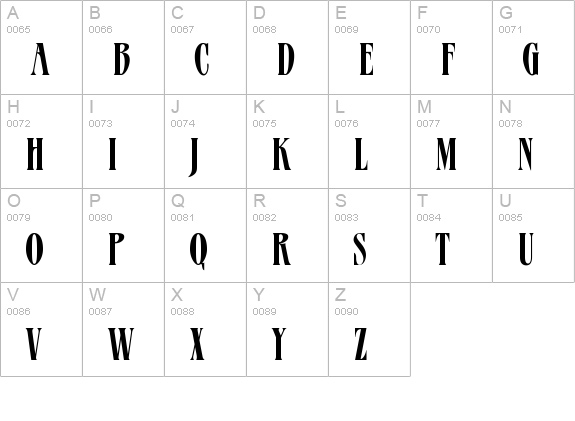
OPTIProtea Font Details
OPTIProtea is a beautifully crafted font that exudes elegance and sophistication. Its sleek and modern design makes it perfect for a wide range of projects, from branding to editorial design. The clean lines and subtle curves of OPTIProtea lend a touch of class to any text, while its versatility allows for both bold headlines and elegant body text. This stunning font is not only visually appealing but also highly readable, ensuring that your message is conveyed clearly and effectively. Whether you're designing a logo, creating a brochure, or working on a website, OPTIProtea is sure to make a lasting impression. Best of all, OPTIProtea is available for free download at FontsMarket.com, making it accessible to designers and creatives of all levels. Don't miss out on this opportunity to enhance your projects with the timeless beauty of OPTIProtea.